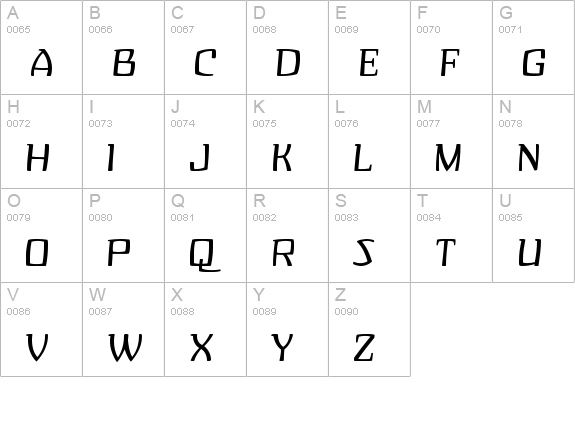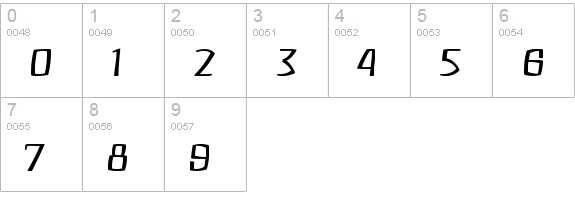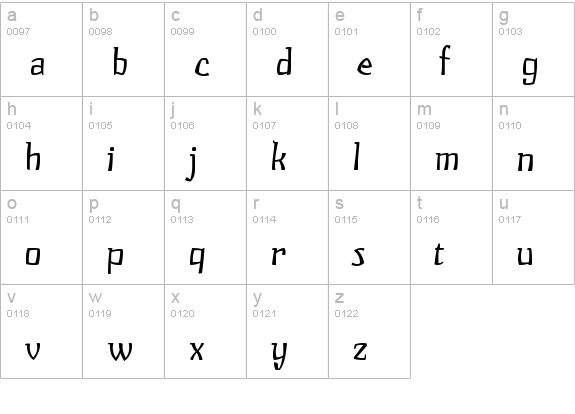
Zupiter Font Details
Zupiter font is a modern and stylish typeface that exudes sophistication and elegance. With its clean lines and sleek design, Zupiter font is perfect for a variety of design projects, from branding to editorial design. The versatility of this font makes it a great choice for both print and digital applications. What makes Zupiter font even more appealing is that it is available for free download at FontsMarket.com. This means that you can incorporate this beautiful font into your projects without any cost, making it a valuable asset for designers and creatives looking to elevate their work. Whether you're designing a logo, creating a website, or working on a marketing campaign, Zupiter font is sure to make a statement and leave a lasting impression. Download this stunning font today and see how it can enhance your designs!